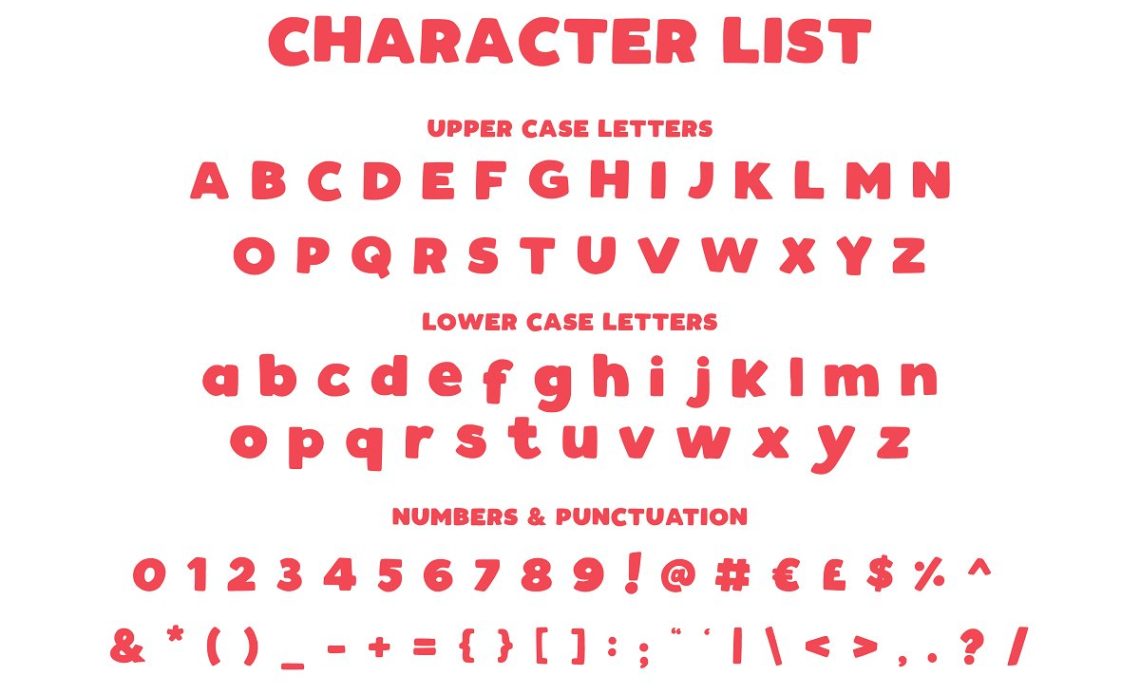
Welcome to Watermelon, the chunky bold sans-serif font designed by Izzy Clarke that is perfect for any fun and quirky design work. If you are looking for the best fonts for web text, you have come to the right place. Watermelon is the font you need to elevate your designs and make them stand out from the rest.
This font is not only visually appealing, but also incredibly versatile. Watermelon can be used for anything from t-shirt designs to phone cases, greeting cards to invitations, mugs to posters, and so much more! You can use your creativity to the fullest and create unique designs that your customers will love.
Watermelon is not just a font, it's a way to bring your ideas to life. With the OTF and TTF versions, you can use Watermelon on any software that supports fonts. Additionally, the web font version of Watermelon ensures that your designs will look amazing on any device, from desktops to smartphones.